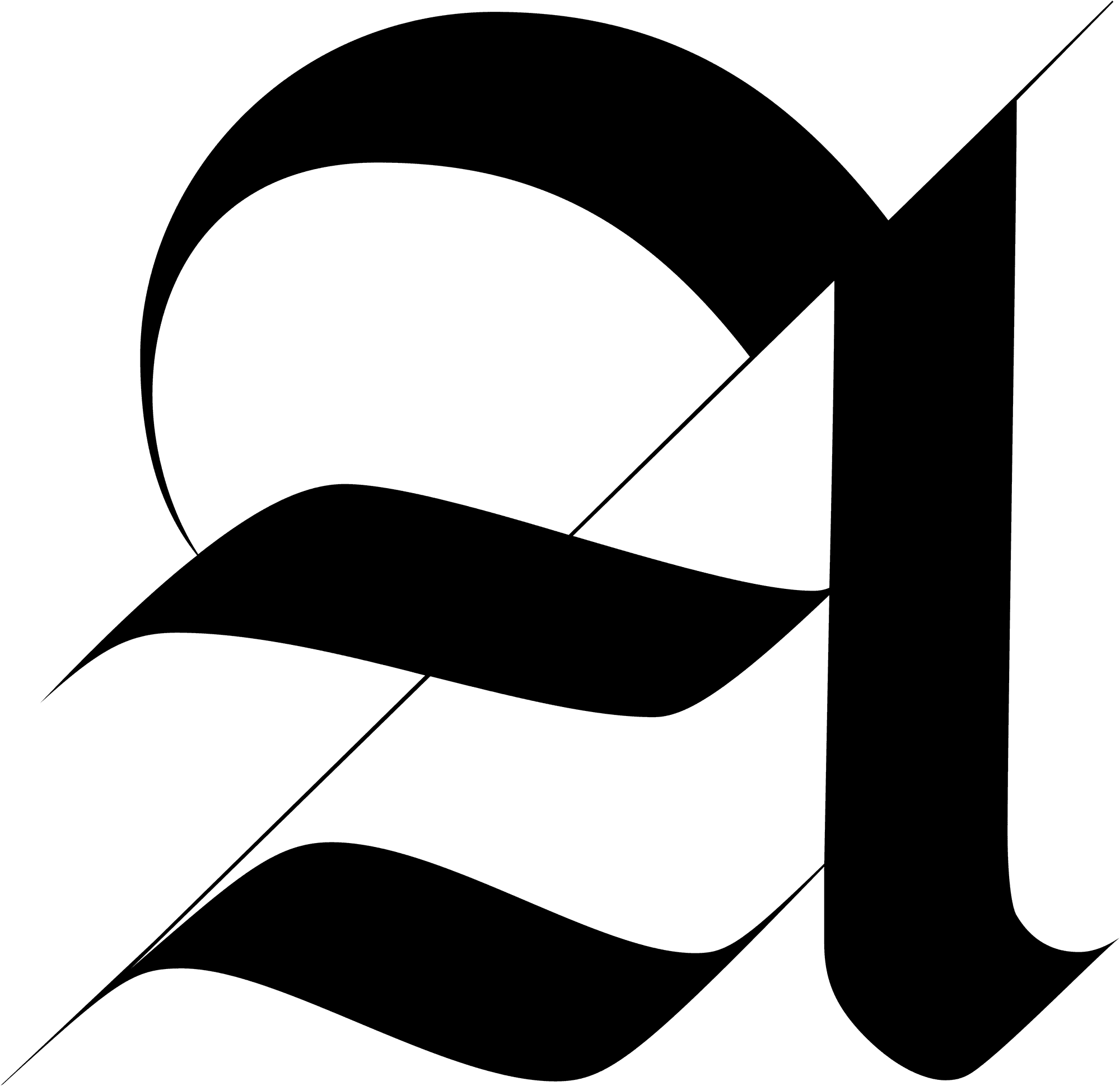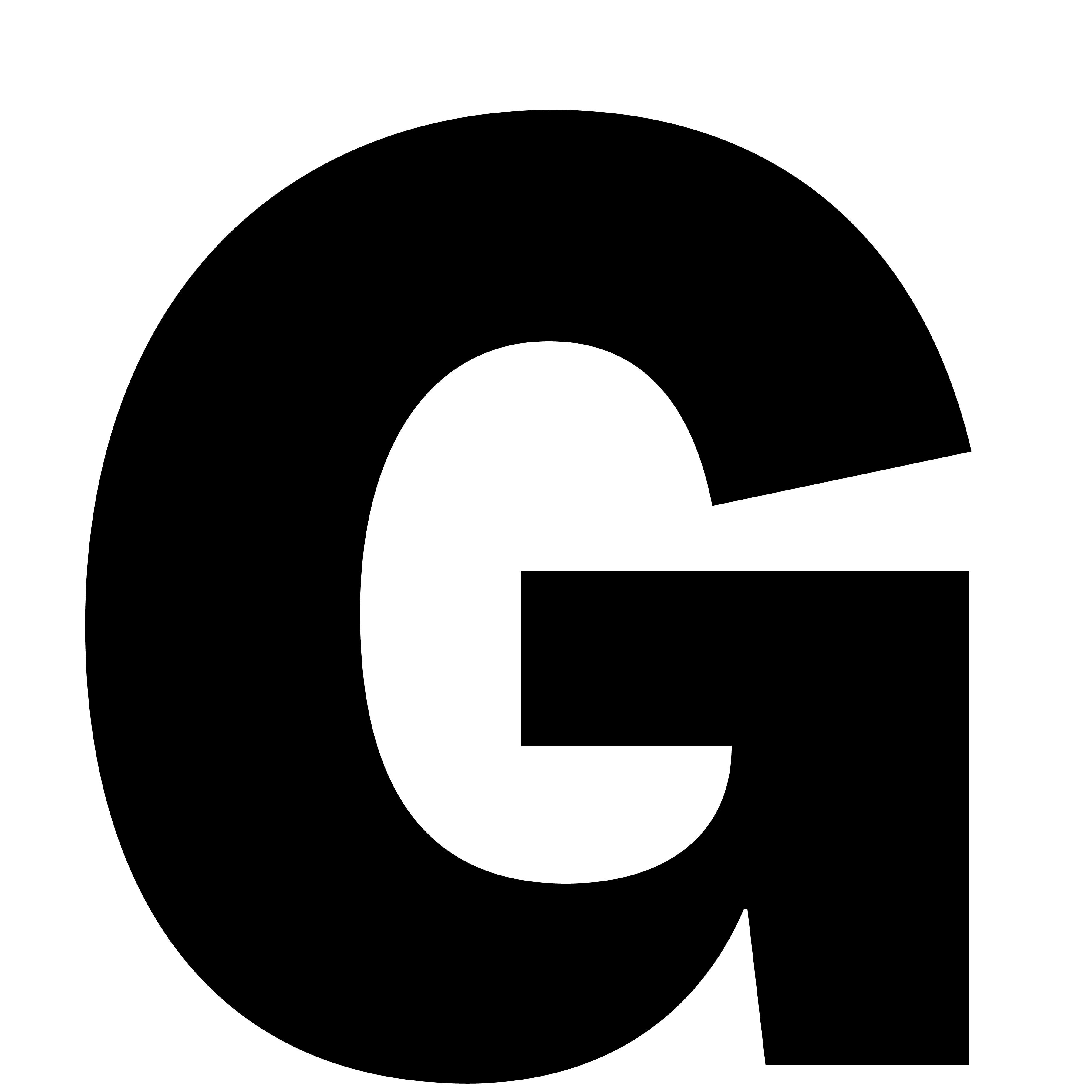
Sharp Type is a global type design studio that offers high-quality typefaces for retail licensing and custom client projects. At Sharp Type, we are at the vanguard of contemporary typeface culture and design, developing historically conscious, but deliberately original typefaces used globally by renowned designers and world-class brands. Our foundry ensures only the highest level of quality throughout every aspect of the development process including design, production, and management.
A compelling typeface is the cornerstone of any successful brand. Our typefaces balance precedent with invention, utility with beauty. Our work is informed by our deep knowledge of type design history, the continual evolution of its historical models, and our own artistic process and invention.
Lucas Sharp and Chantra Malee found Sharp Type from their small one-bedroom apartment in Manhattan. Longtime friend and collaborator Josh Finklea joins at this time, too. The young foundry launches with two big projects that will prove to be early calling cards: Sharp Sans for electronics giant Samsung, and Sharp Sans Display No.1 for Jimmy Fallon’s takeover of The Tonight Show. Ogg wins a type design award from Communication Arts.
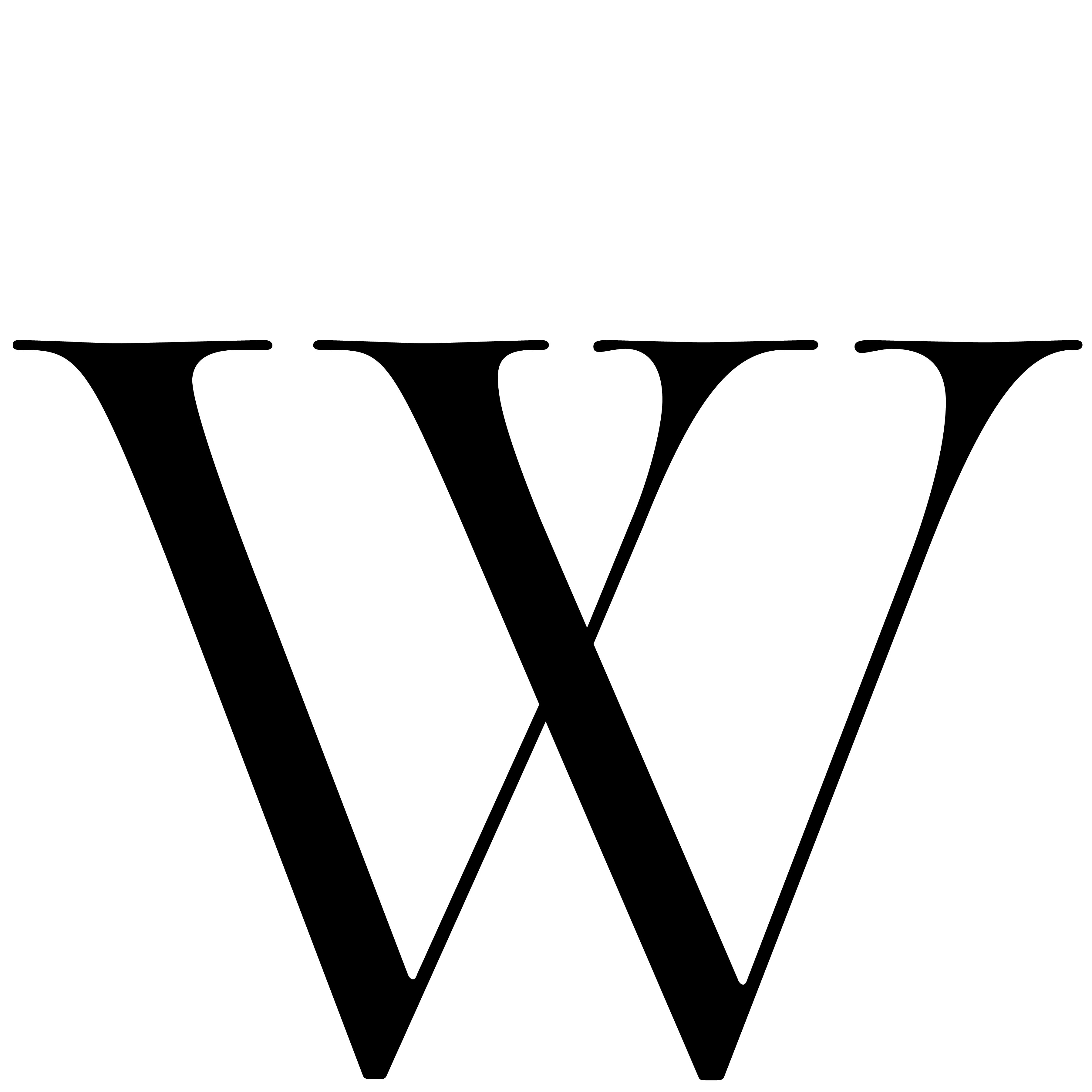
Chantra is an entrepreneur. Since childhood, she has launched and managed companies for her family’s business and later worked in branding in New York City, where she lived for 10 years. In 2015, she co-founded Sharp Type, where she handles strategy, brand management, graphic design, sales, and communication, and has been featured in many publications for her involvement in the industry, including Communication Arts, Monocle, Backstage Talks, It’s Nice That, and more. Chantra is the founder of The Malee Scholarship, a nonprofit offering financial support and mentorship to women from underrepresented backgrounds entering the type industry.
Chantra Malee, co-founder, ceo
Lucas has been designing award-winning original typefaces for over a decade. In addition to designing his own typefaces, Sharp serves as the type director of the foundry, offering guidance, art direction, and mentorship to the type design team. Sharp has designed typefaces for major brands and organizations, including Samsung, Dropbox, and Pentagram. Sharp’s typefaces have been honored by the TDC, the European Design Awards, and more. He co-founded Sharp Type in 2015.
Lucas Sharp, co-founder, type director
2016
Chantra and Lucas move from NYC to Spain, trading in their Chinatown one-bedroom for a beautiful Carmen in Granada with a view of the Alhambra. During this productive spell, Lucas finishes the first version of Sharp Grotesk, their largest typeface to date. Connor Davenport also enters the picture: the recent MICA grad flys out to spend a month with them as their first intern, and, shortly thereafter, their first full-time employee. Lucas’s scriptface Frauen is featured throughout seminal food journal Lucky Peach, and designer Francesco Franchi picks Sharp Grotesk for Italian magazine, La Repubblica.
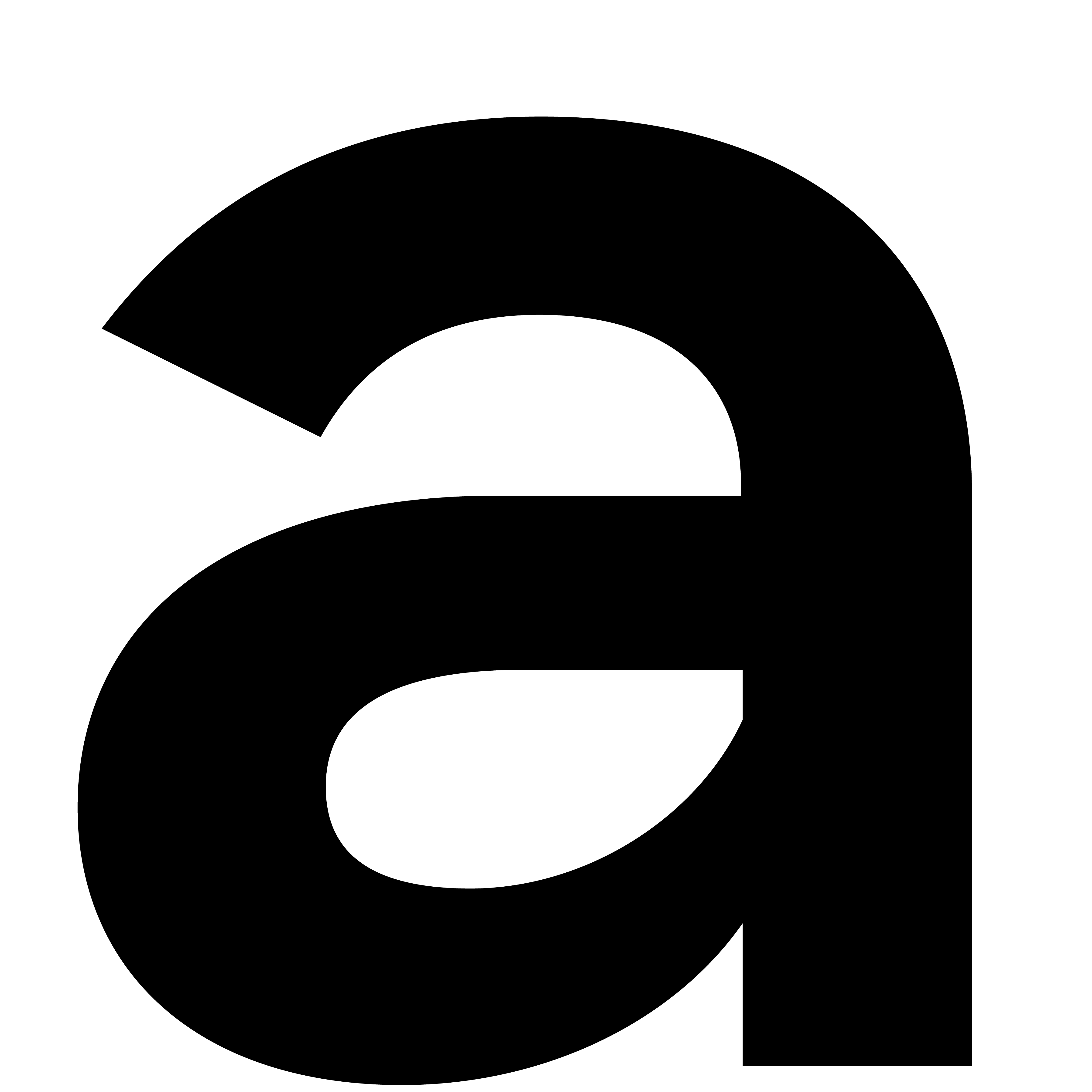
Launch, launch: the studio convenes in Northern California for an annual retreat, laying the groundwork for the release of a new website, a new flagship typeface, and our first proper book publication.